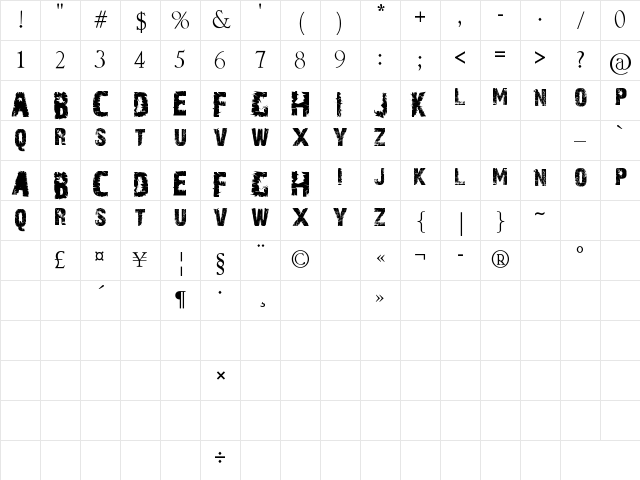
A Trip To Hell And Back Regular
Design Context for A Trip To Hell And Back
A Trip To Hell And Back is a composed and adaptable typeface that performs quietly and consistently across a wide range of design contexts.